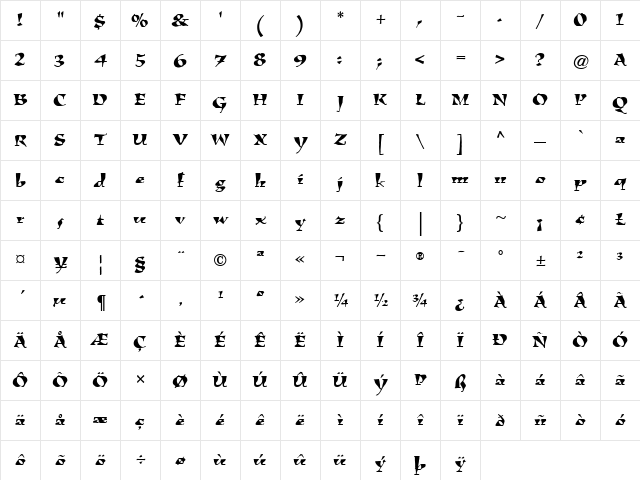
KigaliLx Roman Free Font
KigaliLx Roman
Design Context for KigaliLx
KigaliLx is a composed and adaptable typeface that performs quietly and consistently across a wide range of design contexts.